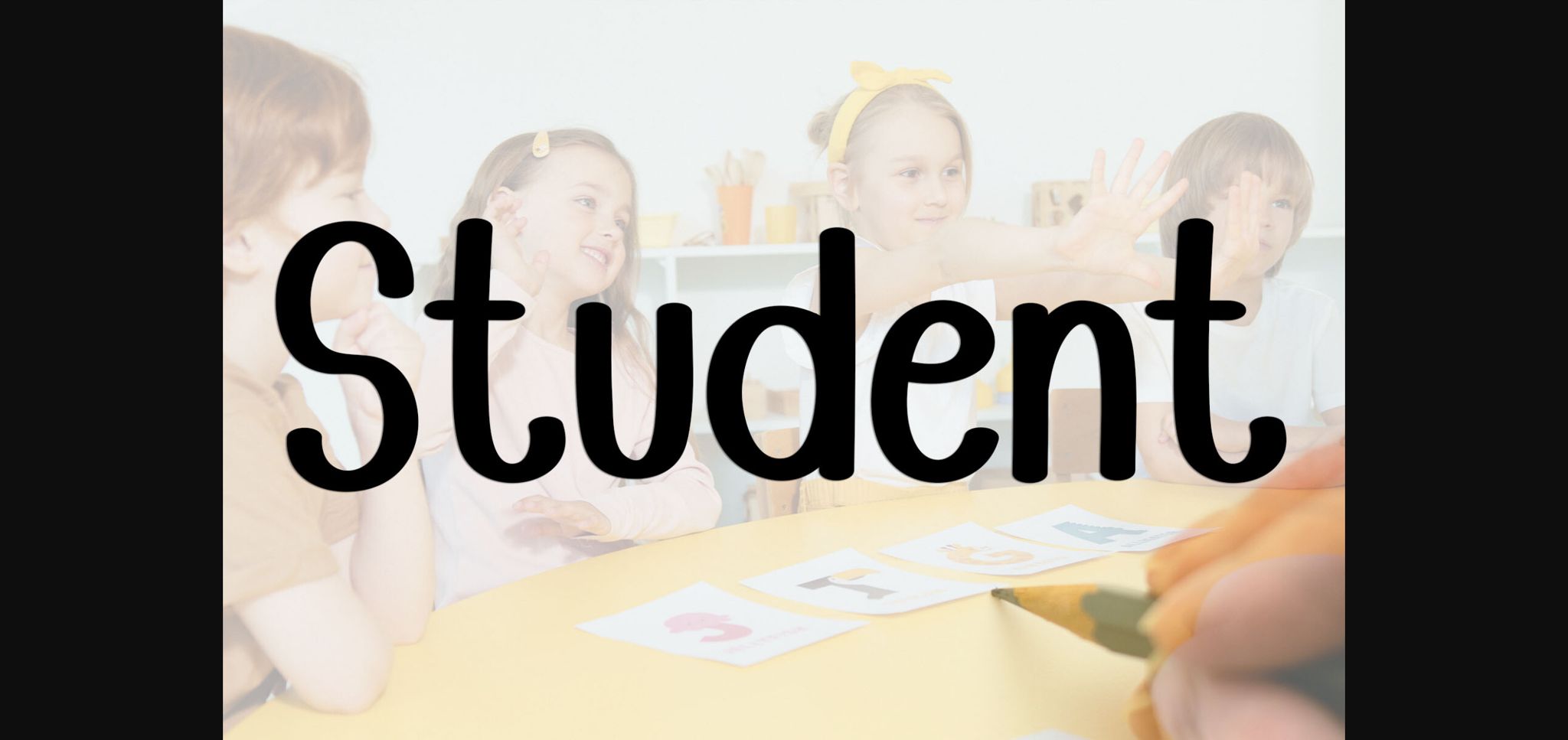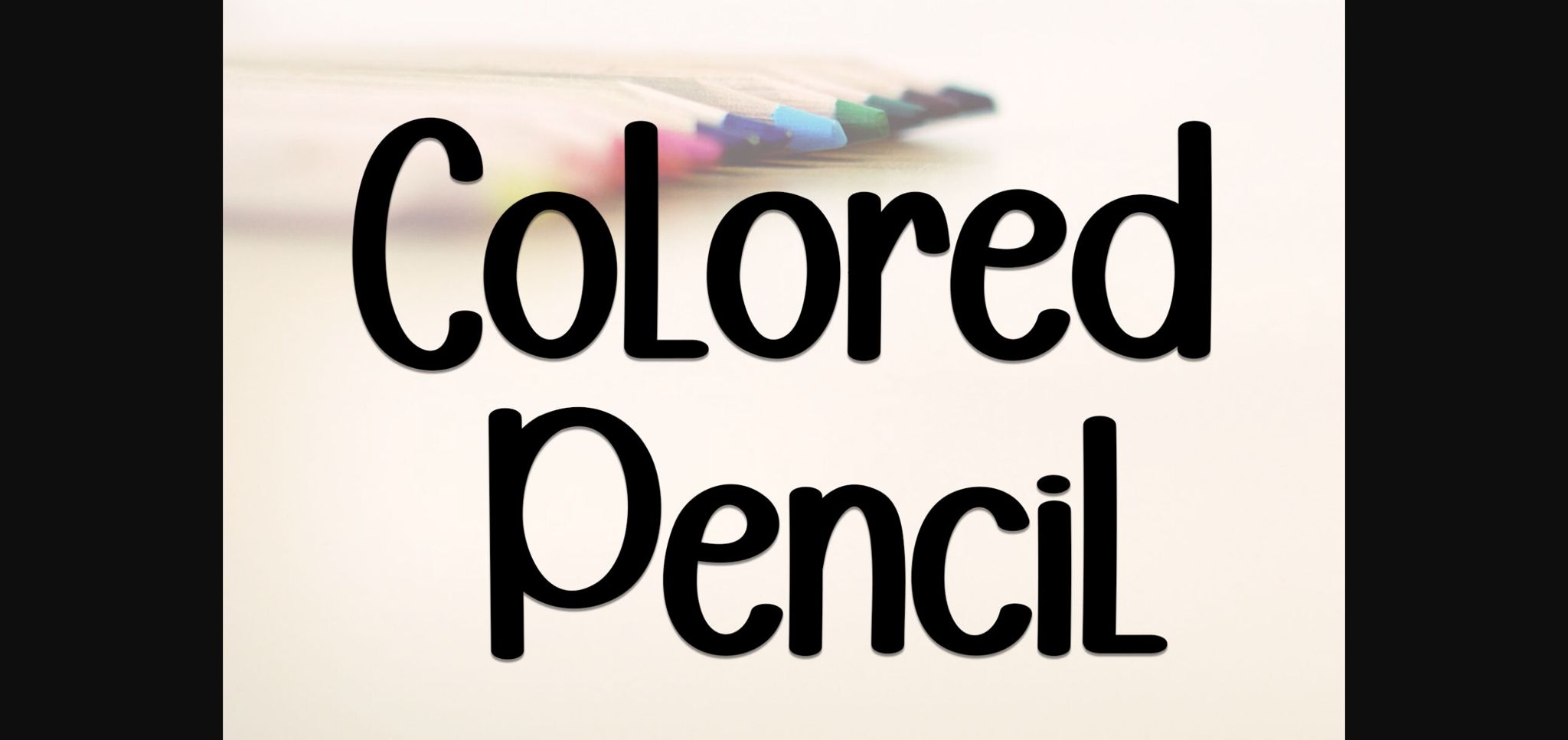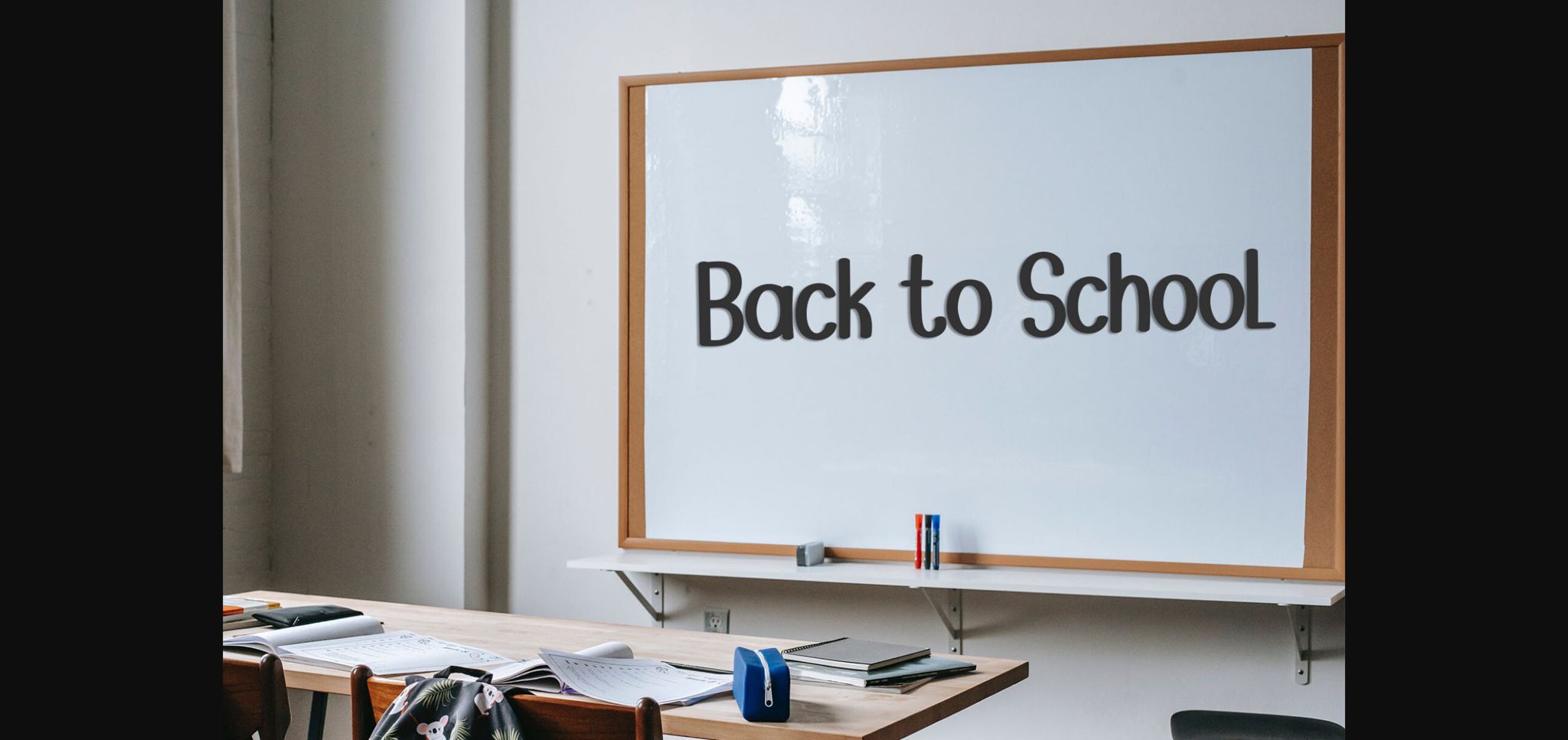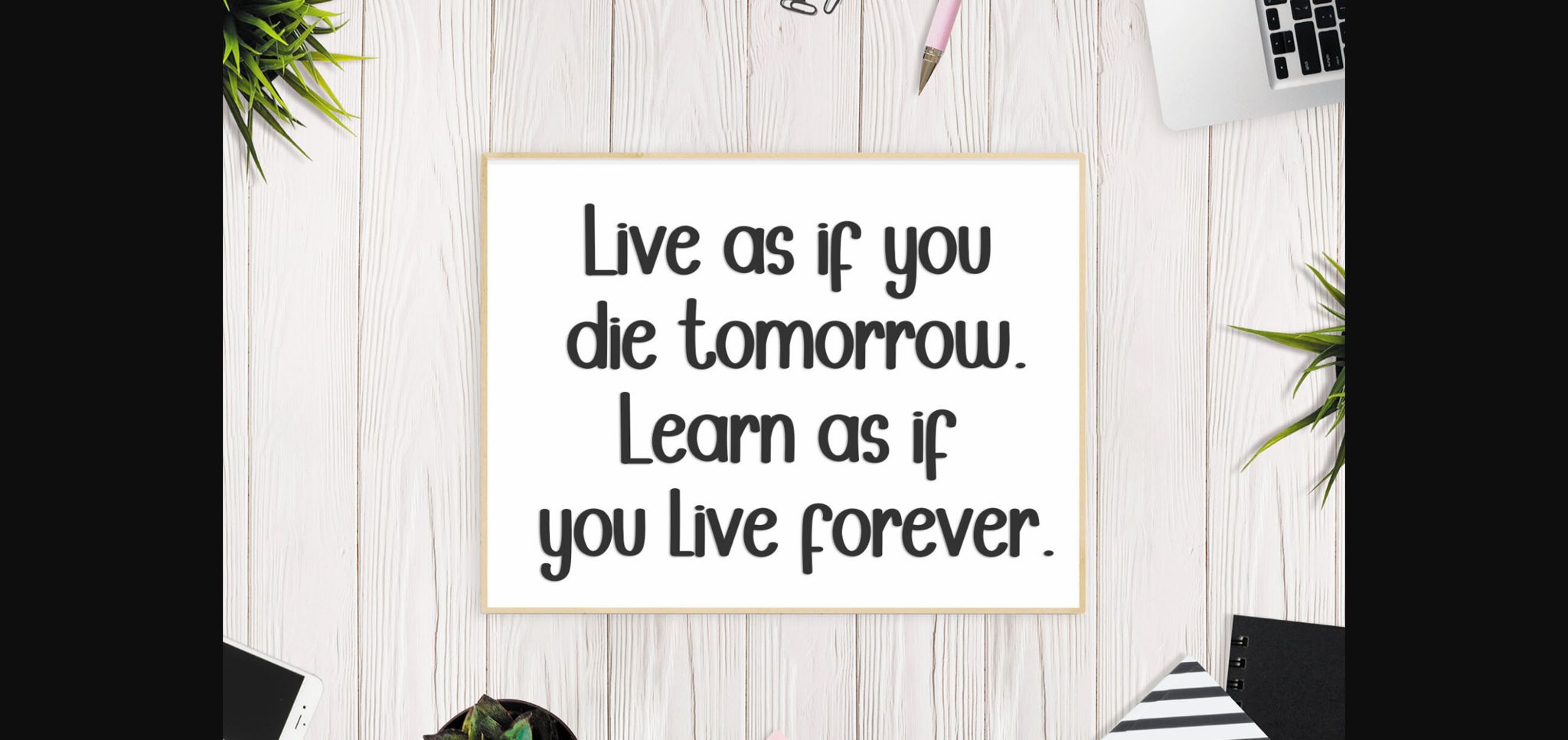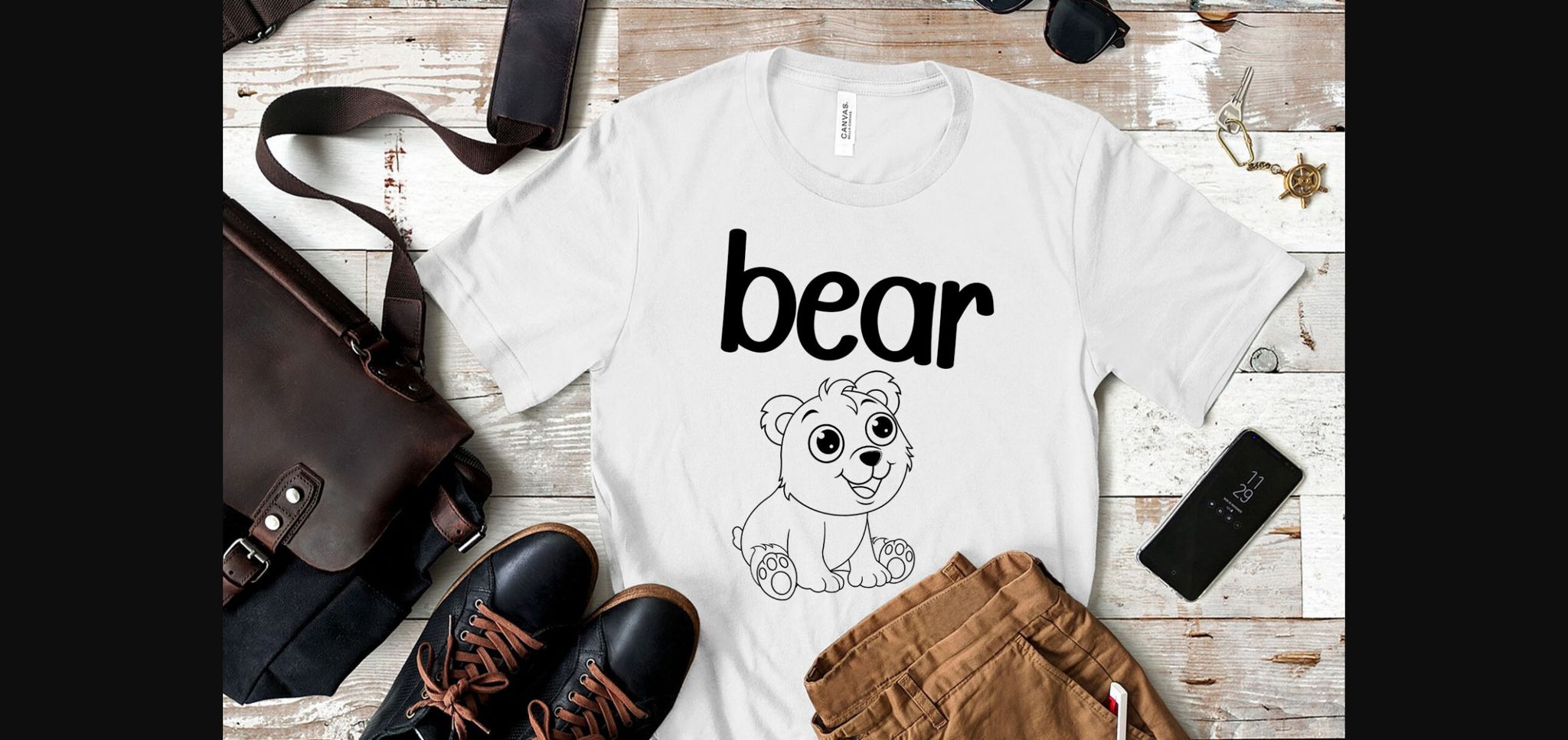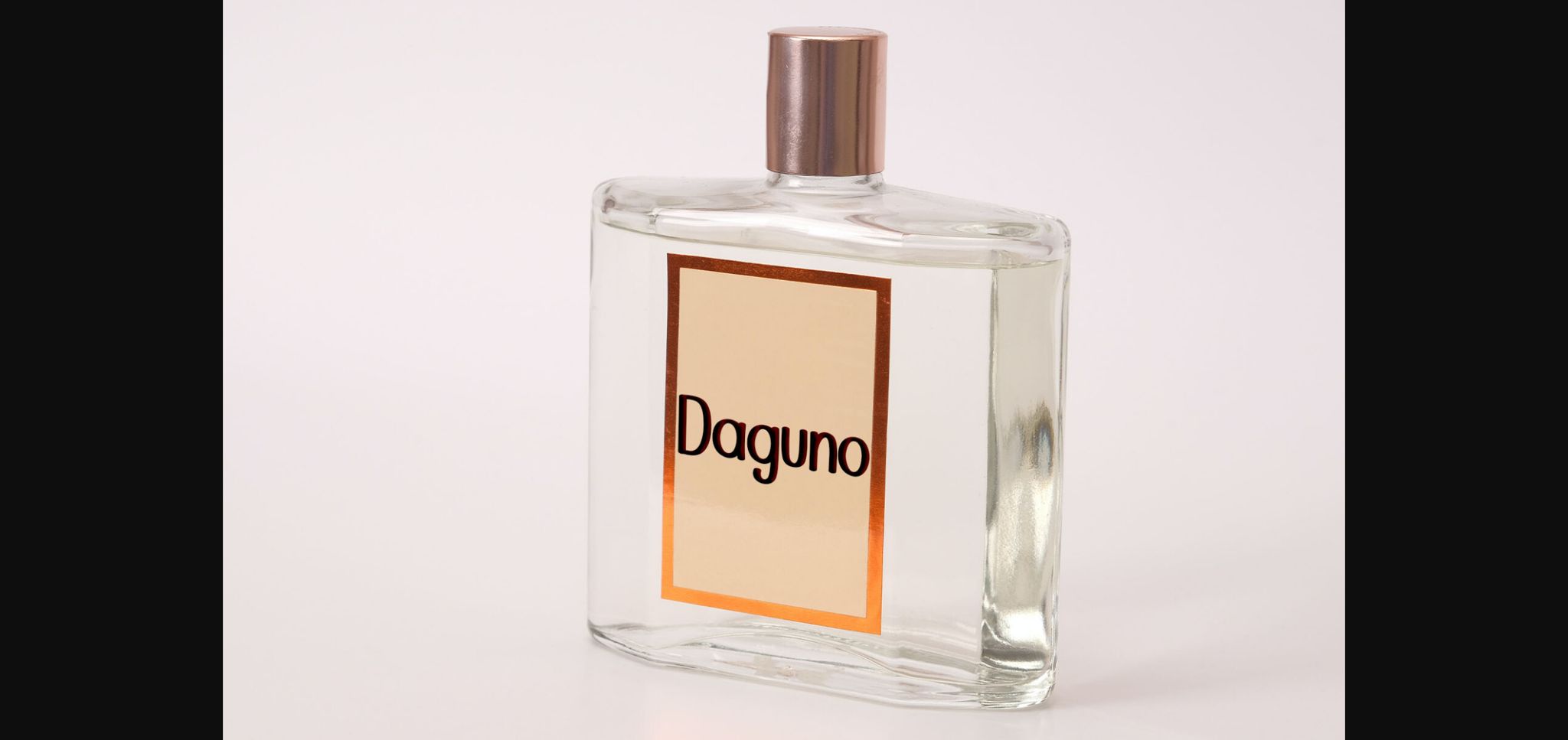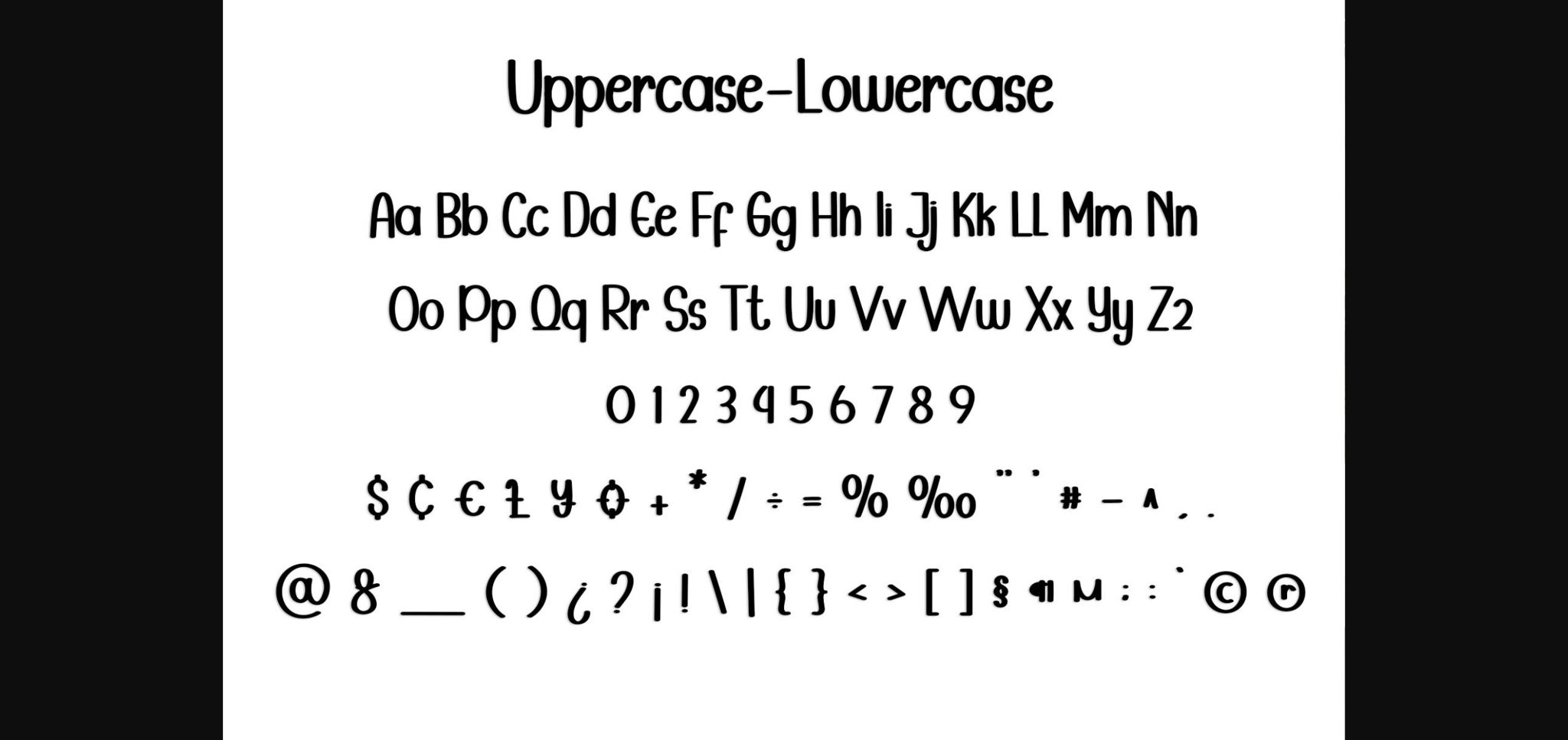
HomeSans Serif FontsStudent Font Sans Serif Fonts Student Font FacebookXPinterestWhatsApp 1 of 10 ... Student Font Poster 2... Student Font Poster 3... Student Font Poster 4... Student Font Poster 5... Student Font Poster 6... Student Font Poster 7... Student Font Poster 8... Student Font Poster 9... Student Font Poster 10... About Student Font Student is a simple and sleek-looking sans-serif font. Add it to your creative ideas and take advantage of its versatility! DOWNLOAD NOW People also explored Dillova Font Lavenchia Font Baylersome Font Bulgaria Font Dark Angels Font Christmas Bless Font Joyfully Font Feathers Font Minimalist Font 406 0 TagsStudentStudent Font Previous articleWelcome FontNext articleGeminies Font LEAVE A REPLY Cancel reply Comment: Please enter your comment! Name:* Please enter your name here Email:* You have entered an incorrect email address! Please enter your email address here Website: Save my name, email, and website in this browser for the next time I comment. Personal Use Free Cinderella Personal Use Free Read more about this font Makcex Personal Use Free Read more about this font Wondery Personal Use Free Read more about this font Marthissa Personal Use Free Read more about this font BLOG Elegant Wedding Invitation Fonts – Handwritten & Script Fonts Elegant Wedding Invitation Fonts Your wedding day is one of the most important moments of your life, and every detail matters—including your invitation design. Our... Top 10 Handwritten Fonts That Elevate Your Designs How to Install and Use Fonts on Windows, macOS, and Web Projects How to Cut Any Font on Cricut: Convert a Font to SVG (Free)